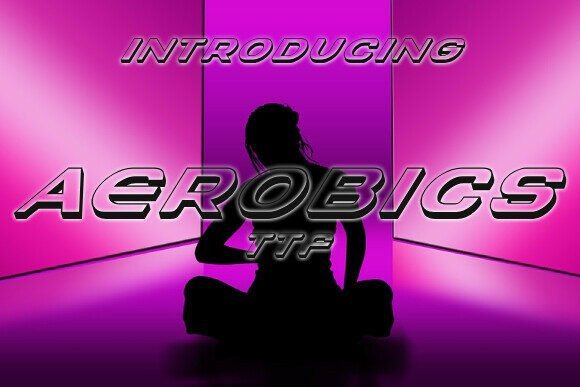
The Perfect Rhythm for Your Next Design Project
Have you ever been in the midst of a high-energy workout, feeling the rush of adrenaline as you push through a challenging set? Or perhaps you’ve been to a music festival, surrounded by pulsating lights and infectious beats? Whatever your creative spark, we’re about to introduce you to the perfect font to capture that same energy and dynamism – Aerobics Font.
This bold and futuristic display font is designed to transport your designs to a world of speed and movement, making it a valuable asset for any designer looking to add a touch of modern style and strength to their projects. With its sleek, metallic-inspired finish and forward-slanting structure, Aerobics Font is perfect for fitness branding, event posters, digital ads, and retro-futuristic design themes.
Aerobics Font Key Features
- Unique Characteristics: The Aerobics Font features a bold, energetic design with rounded edges and a mix of uppercase and lowercase letters.
- Font Weight: The font has a single weight, which is a medium to bold weight, making it suitable for headings and titles.
Aerobics Font Review
At first glance, Aerobics Font seems like a fun and energetic typeface. And in many ways, it delivers ✨. The bold lines and rounded edges give it a friendly and approachable feel, perfect for fitness and wellness-related projects.
Here are some of the things that work well about Aerobics Font:
- Highly legible, even at small font sizes ✨
- Fun and playful feel that’s perfect for fitness and wellness projects ✨
- Supports a wide range of languages, making it a versatile option ✨
However, there are some limitations to consider ⚠️:
- May not be suitable for more formal or professional projects ⚠️
- Lacks a more detailed or condensed version, which can make it difficult to use in certain contexts ⚠️
- Some users may find the font too loud or overwhelming ⚠️
Overall, Aerobics Font is a solid choice for fitness and wellness projects, but it may not be the best fit for every design need. With some careful consideration and planning, it can be a fun and effective way to add some personality to your designs.
Getting the Most Out of Aerobics Font
To get the most out of the Aerobics Font, try using it in combination with other bold and playful fonts to create a visually appealing design.
Use the font to add a touch of fun and energy to your design, such as in fitness or sports-related projects.
The Aerobics Font is commonly used in fitness and sports-related projects, such as:
1. Fitness class schedules and flyers.
2. Sports team logos and branding.
3. Fitness and wellness
Alternatives to Aerobics Font
Avenir Next
Avenir Next is a modern sans-serif font designed for legibility and versatility. It is ideal for use in body text and is a great choice for digital design. Compared to Aerobics Font, Avenir Next is more elegant and refined, making it a better option for high-end branding and digital products.
Montserrat is a geometric sans-serif font that is highly legible and versatile. It is perfect for use in headings and titles, and is a great choice for urban and modern designs. Compared to Aerobics Font, Montserrat is more modern and edgy, making it a better option for bold and eye-catching designs.
Open Sans is a clean and modern sans-serif font that is highly legible and versatile. It is ideal for use in body text and is a great choice for digital design. Compared to Aerobics Font, Open Sans is more neutral and versatile, making it a better option for a wide range of designs and applications.